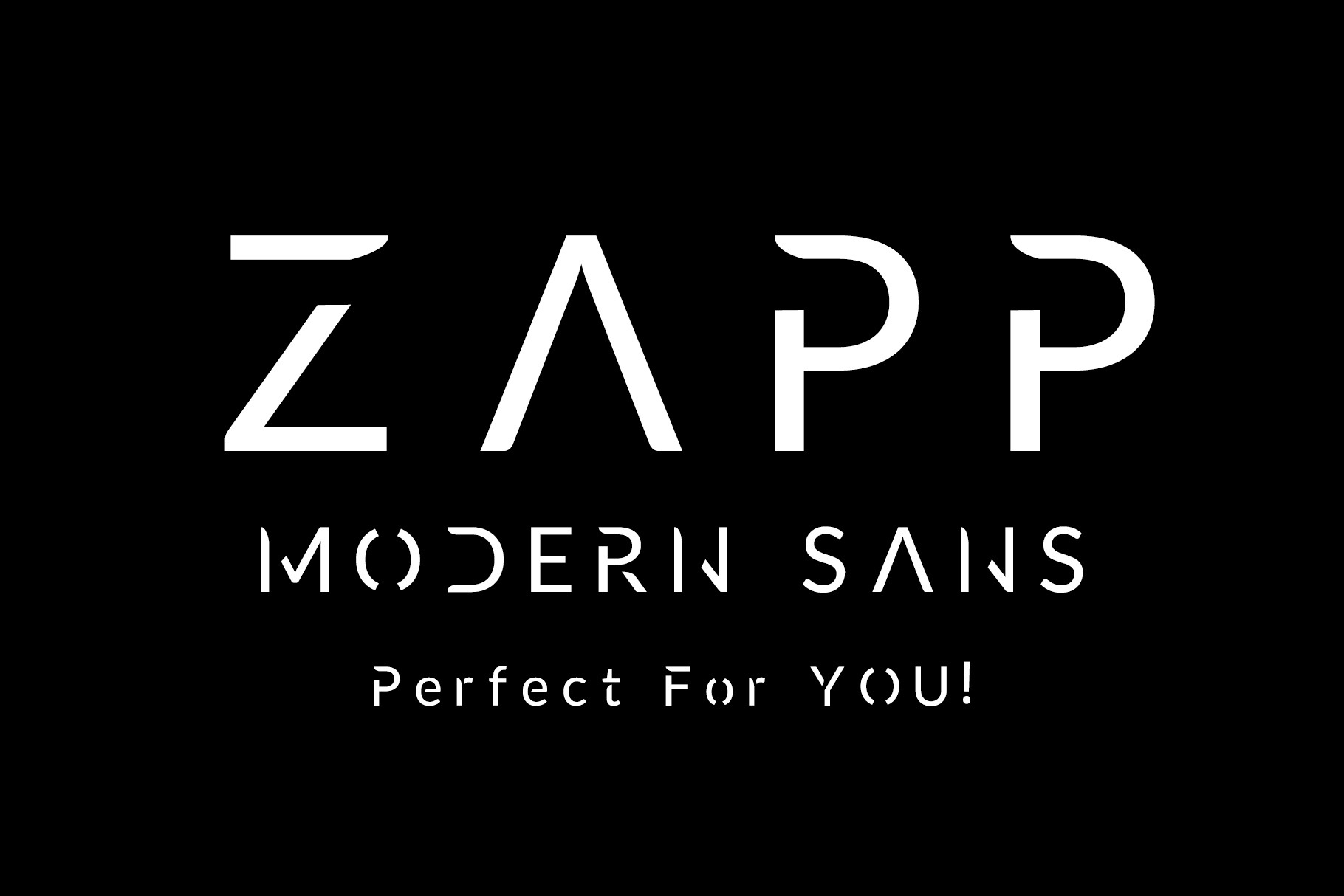
ZAPP Minimal Modern Sans Font
Bringing up New Font - Perfect For YOU! - Perfect For Your Identity - Start Your Venture & Brand with 3D effect illusions style Modern Clean Font - ZAPP